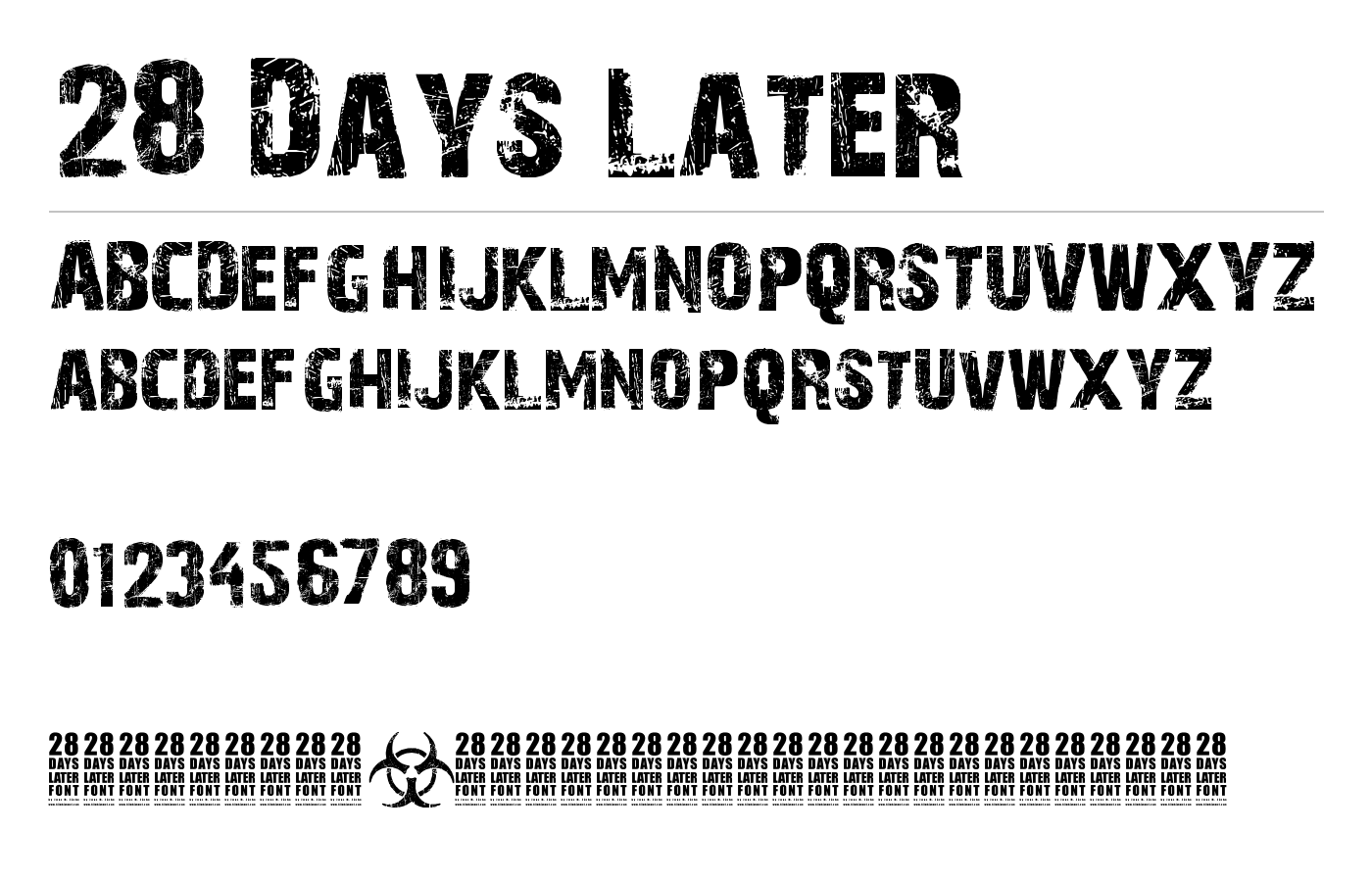
28 Days Later is a bold, distressed sans serif font that combines a strong, industrial feel with a worn, grungy texture, evoking a sense of urgency and roughness. Its all-caps design with irregular edges and heavy weight makes it perfect for creating impactful headlines, posters, or branding that requires a gritty, apocalyptic, or rebellious atmosphere. This font works especially well in designs aiming to capture attention with a raw, edgy personality.
28 Days Later Font
About 28 Days Later Font